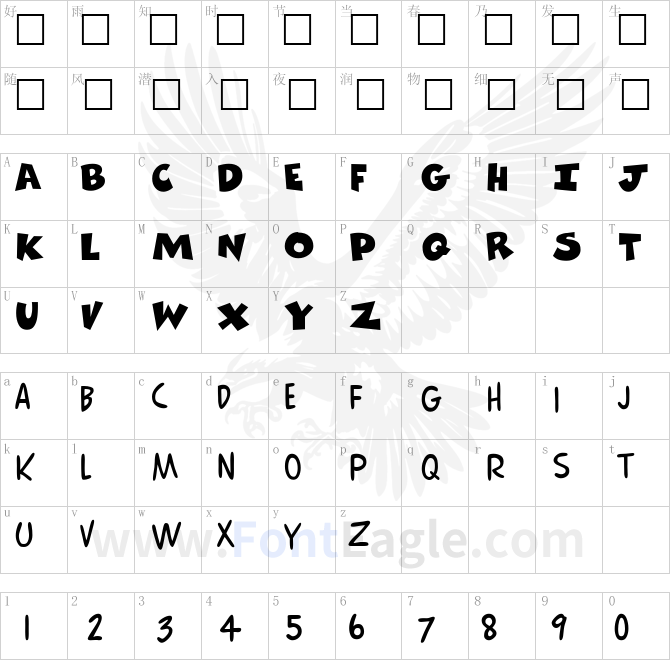
- Font name:ComicsCarToon
- Font Subfamily ID:Altsys Fontographer 3.5 ComicsCarToon Regular
- Font Full Name:ComicsCarToon Regular
- Font Version:Altsys Fontographer 3.5 10/2/92
- Postscript:ComicsCarToon